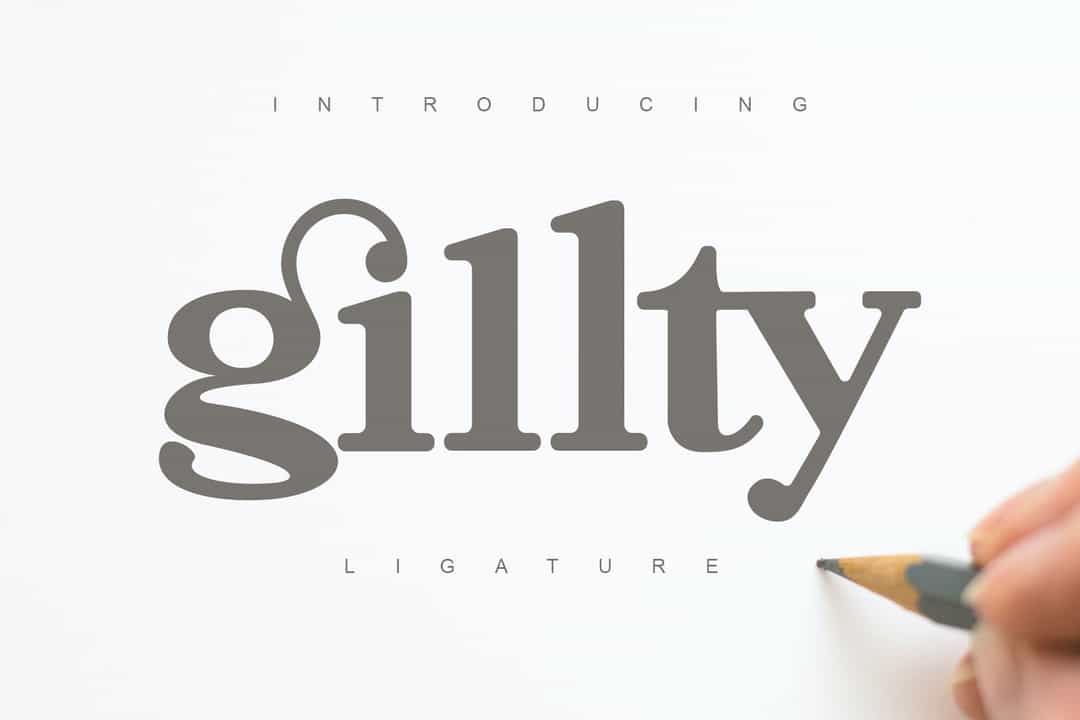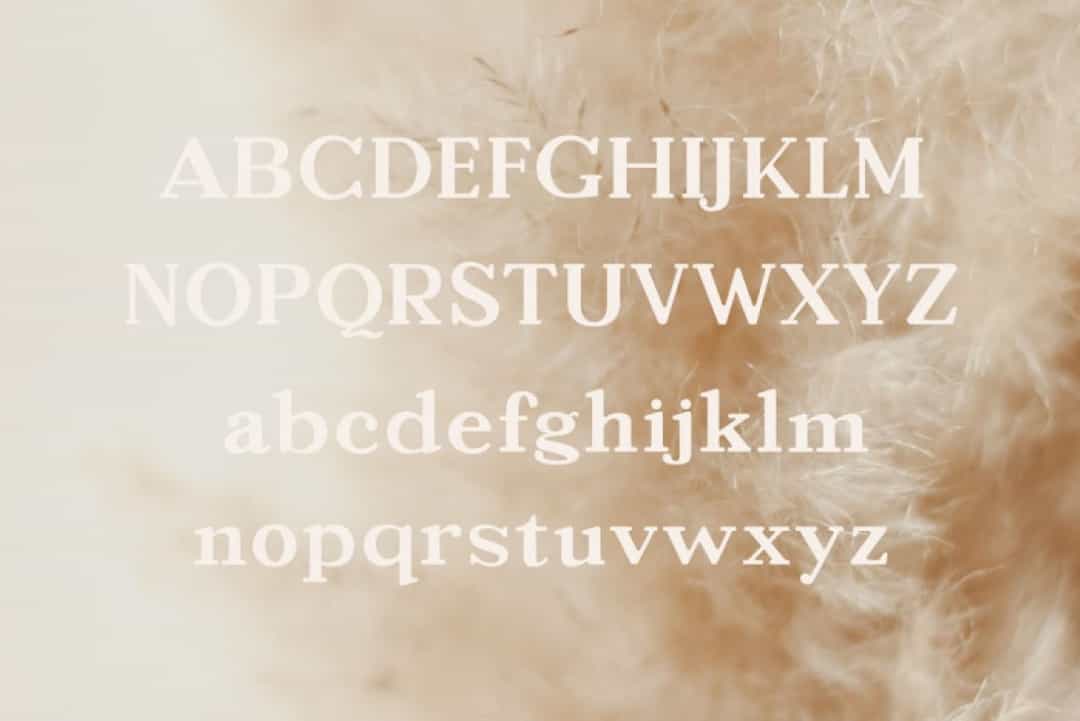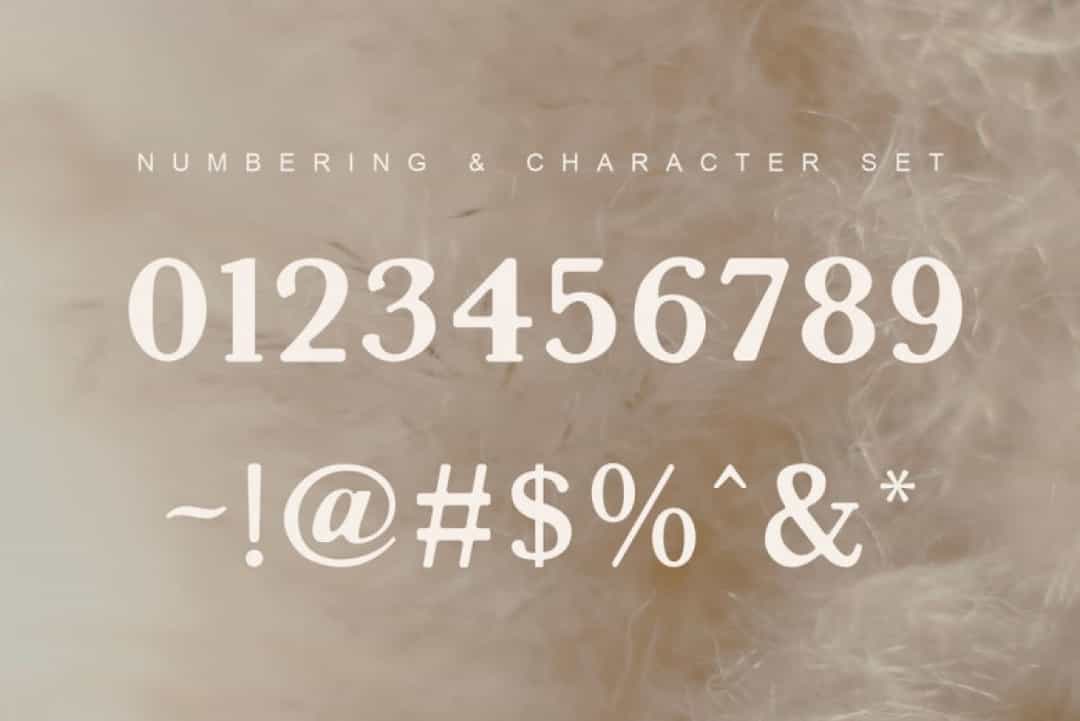
Discover Gillty Font, part of the Serif collection—a versatile and unique font perfect for adding a personal touch to your projects. Download it for free and enjoy crafting designs with style, from invitations to social media posts. This font is available exclusively for personal use, giving you the freedom to create without limits. Unlock your creativity with Gillty Font today!
Gillty fonts have a single style that features uppercase alphabet letters, numerals, punctuation marks and symbols with simple design to be easy for readers to comprehend and follow along. Other fonts might provide distinct designs for specific words but Gillty offers clean modern aesthetic.